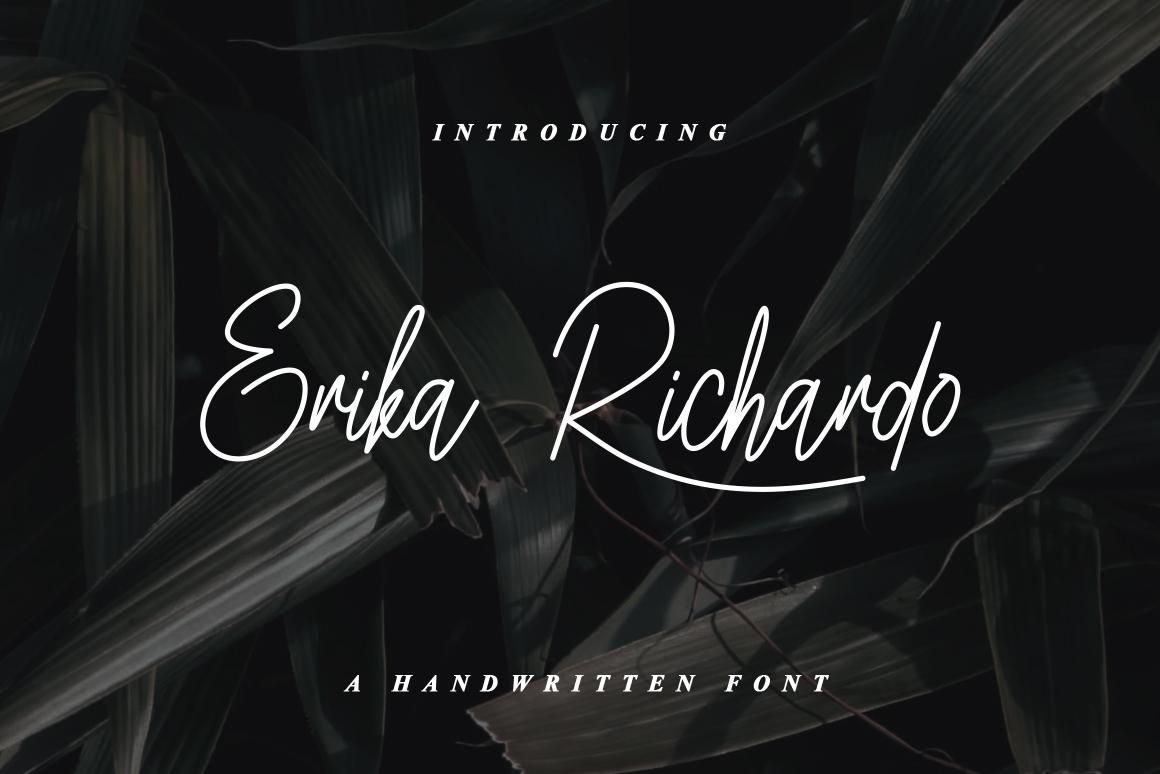
Erika Richardo Font Description
Erika Richardo is an elegant script font with a contemporary atmosphere and impeccable form, inspired by timeless classic calligraphy. It has a clean, thin and smooth vibe and it will be a hit for any design that you want to add it to.